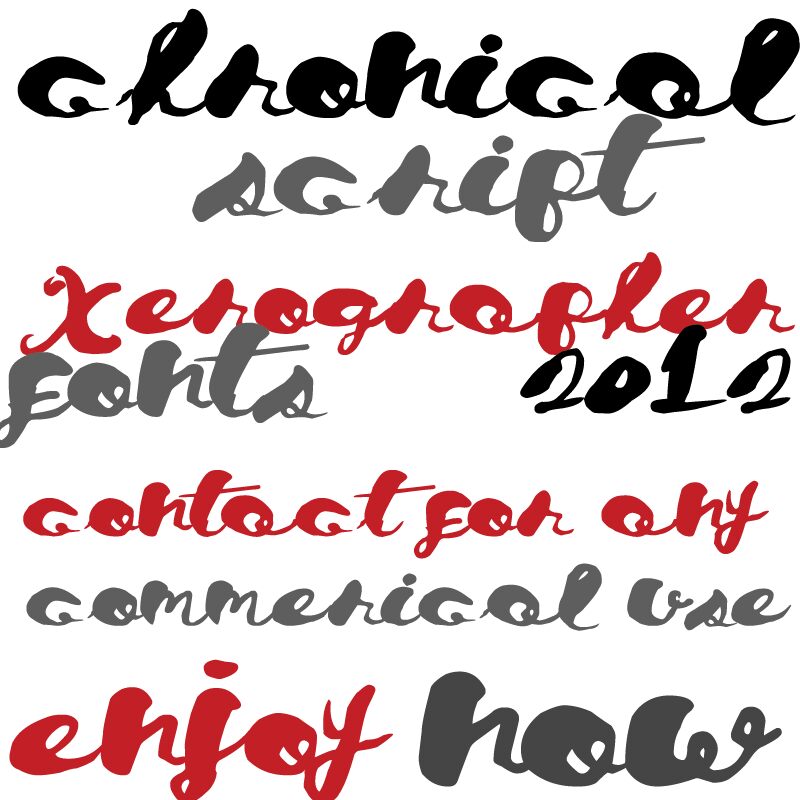
Chronical Script by Xerographer Fonts is a free handwritten font with the dense sweep of an oversized signature. Its broad, inky strokes bunch tightly together, then break into narrow joins and sudden pointed turns. Long loops and rising flourishes keep the line lively.
For fashion branding, the lettering can suggest a personal mark, yet its rougher shapes also suit album covers and gig posters. It has enough theatrical movement for dramatic packaging, especially when the writing itself almost becomes the main image. The font is often most convincing in a logo, where its connected silhouette reads as a bold, compact, single distinctive gesture.